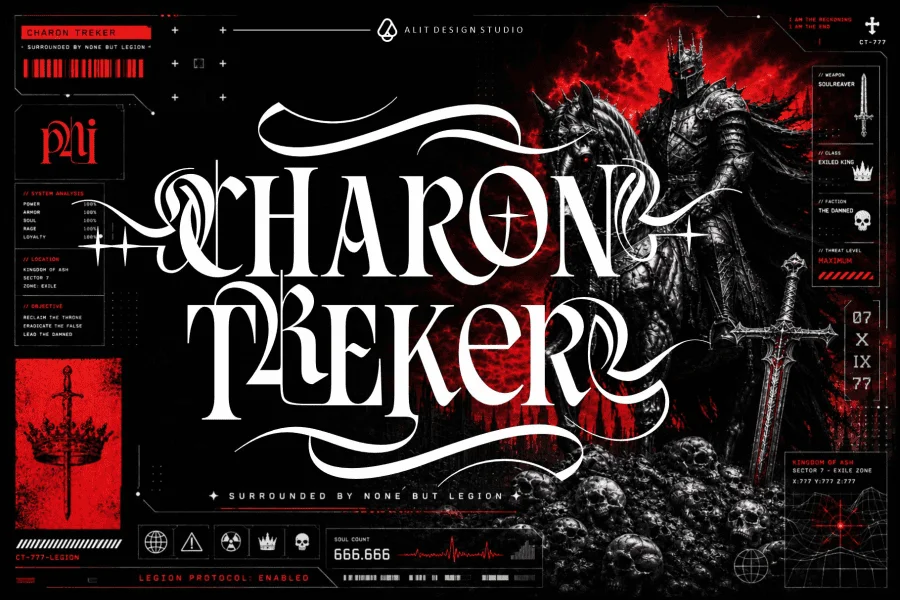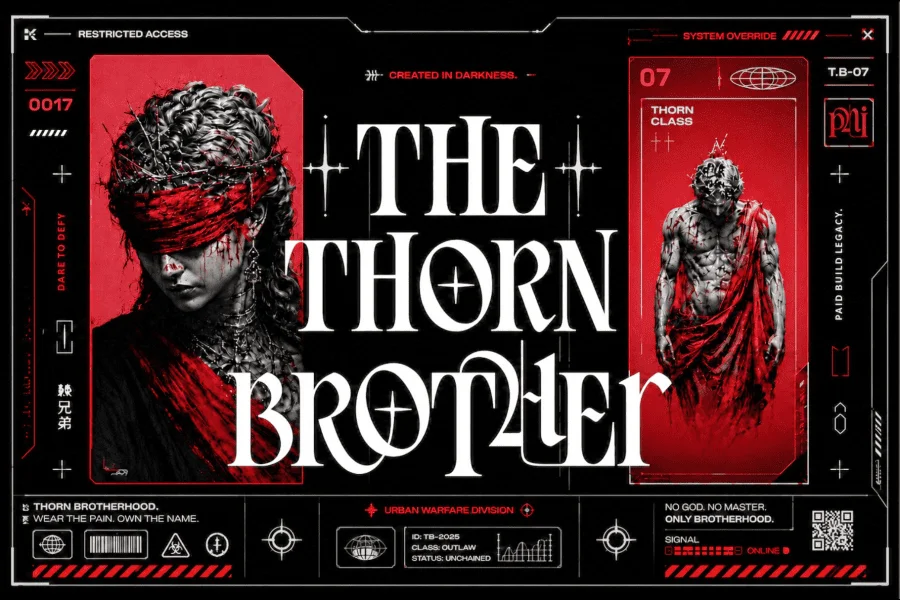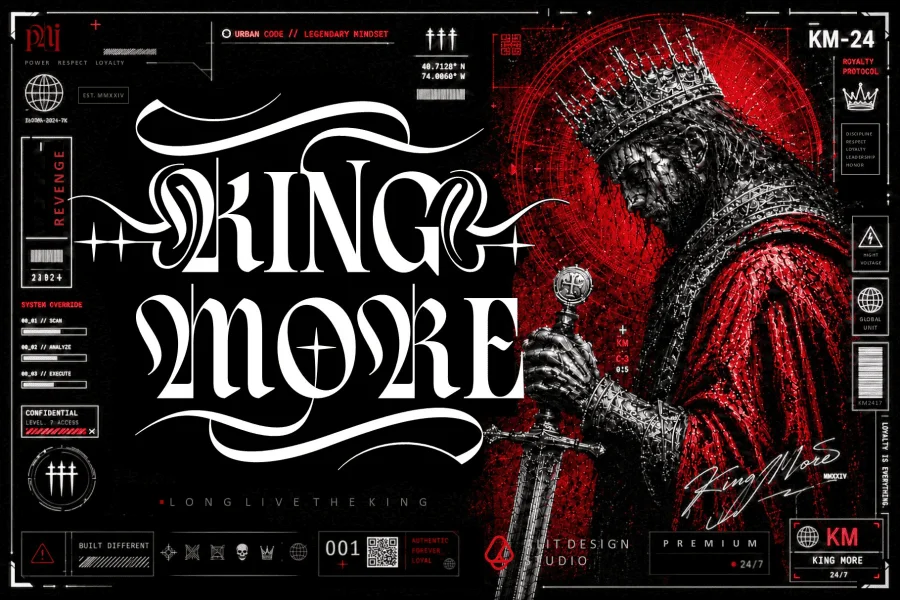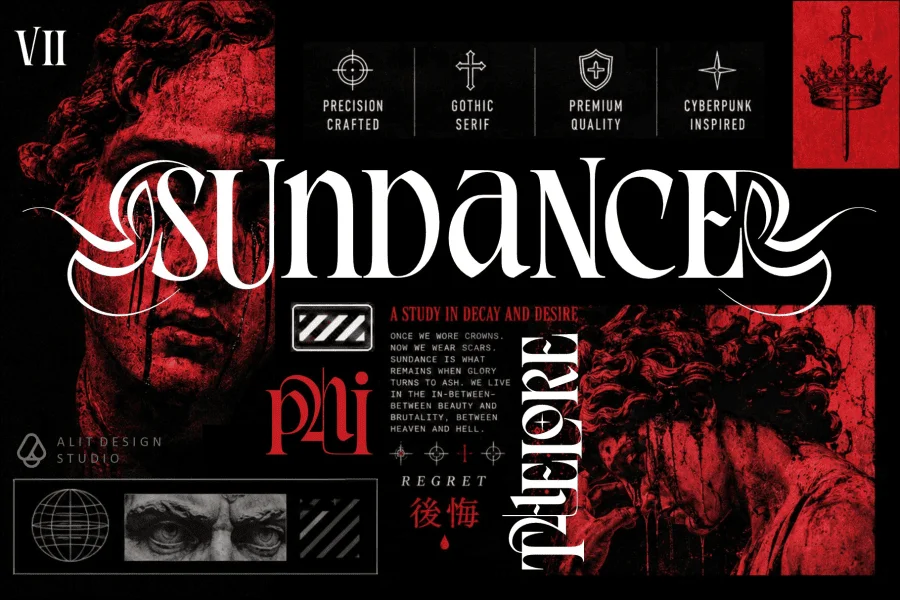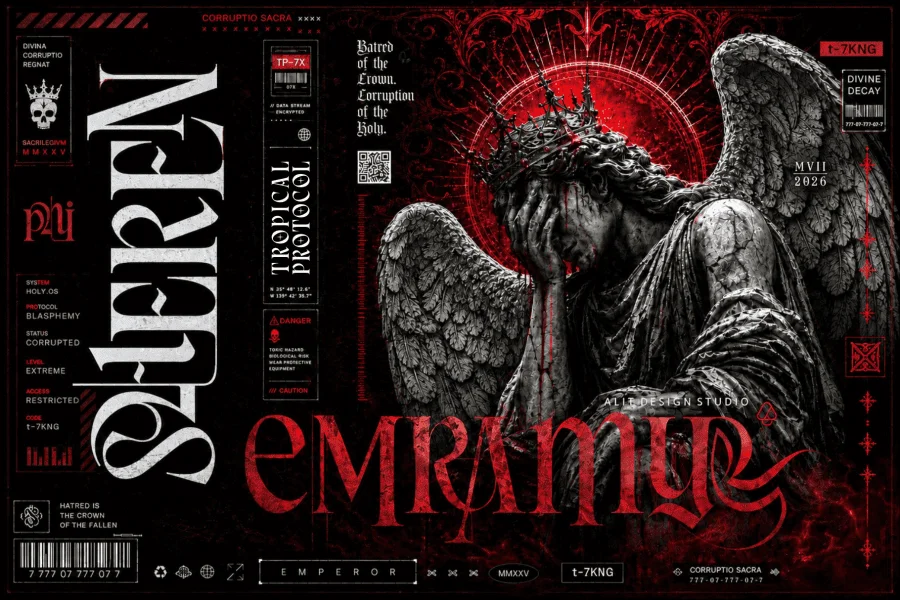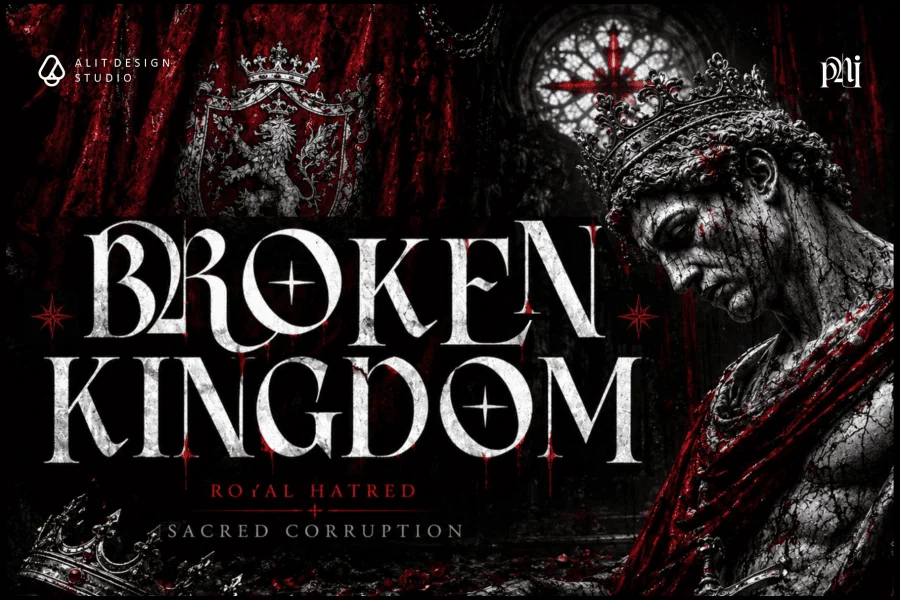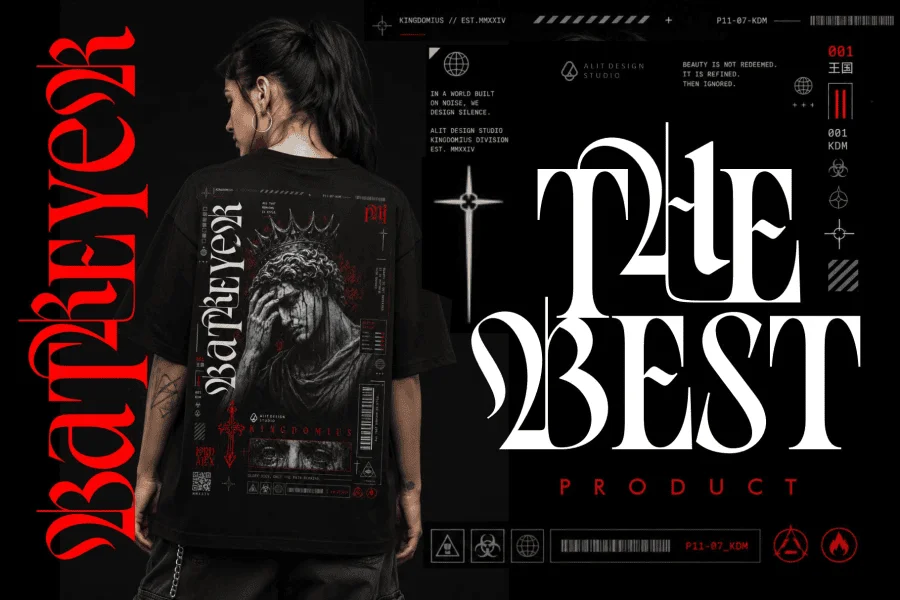
"In the shadow of the crown, hatred becomes legacy and power becomes a curse."
Introducing Royal Hatred, a meticulously crafted gothic serif typeface born from the aesthetic of dark fantasy, royal decay, and sacred corruption. Designed for high-impact, high-contrast visuals, this premium font fuses classical blackletter elegance with an edgy, modern, and almost cyberpunk-inspired aggression.
Royal Hatred is not just a typeface; it is a cinematic experience. With its sharp, sweeping serifs, dramatic swashes, and intricate cross-inspired details, this font commands attention. It is the ultimate tool for designers looking to inject raw power, dark elegance, and a touch of the occult into their projects.
Whether you are designing for the underground streetwear culture, cinematic horror movie posters, heavy metal album art, dark fantasy book covers, or high-end gothic branding, Royal Hatred delivers an uncompromising aesthetic.